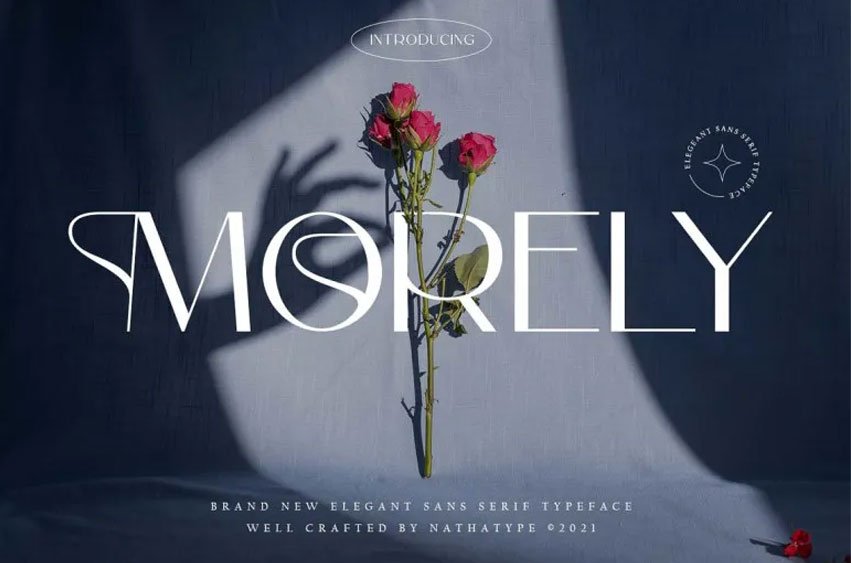
Morely Font
Morely Font is one of the finest, eye-catching fonts with a contemporary style that never ceases to delight clients, customers, guests, and everyone nearby. A timeless classic font which never ceases to impress clients, customers, guests as well as anyone in its vicinity – perfect for presentations, designs for websites, illustrations for websites and much more.